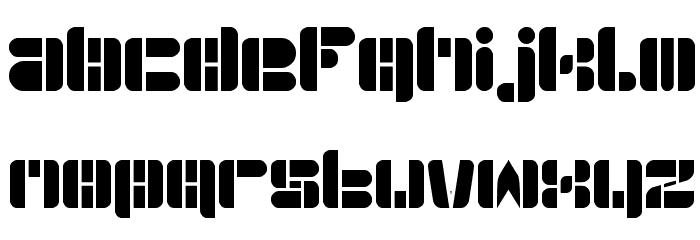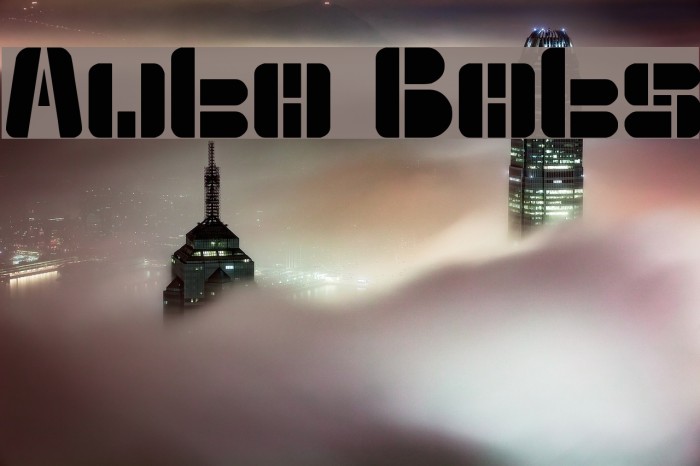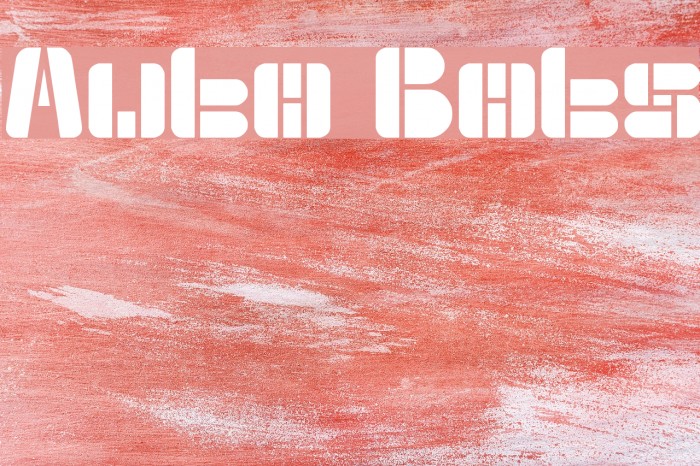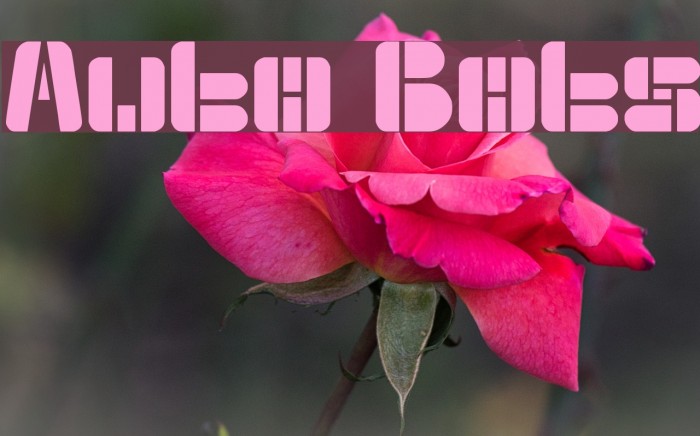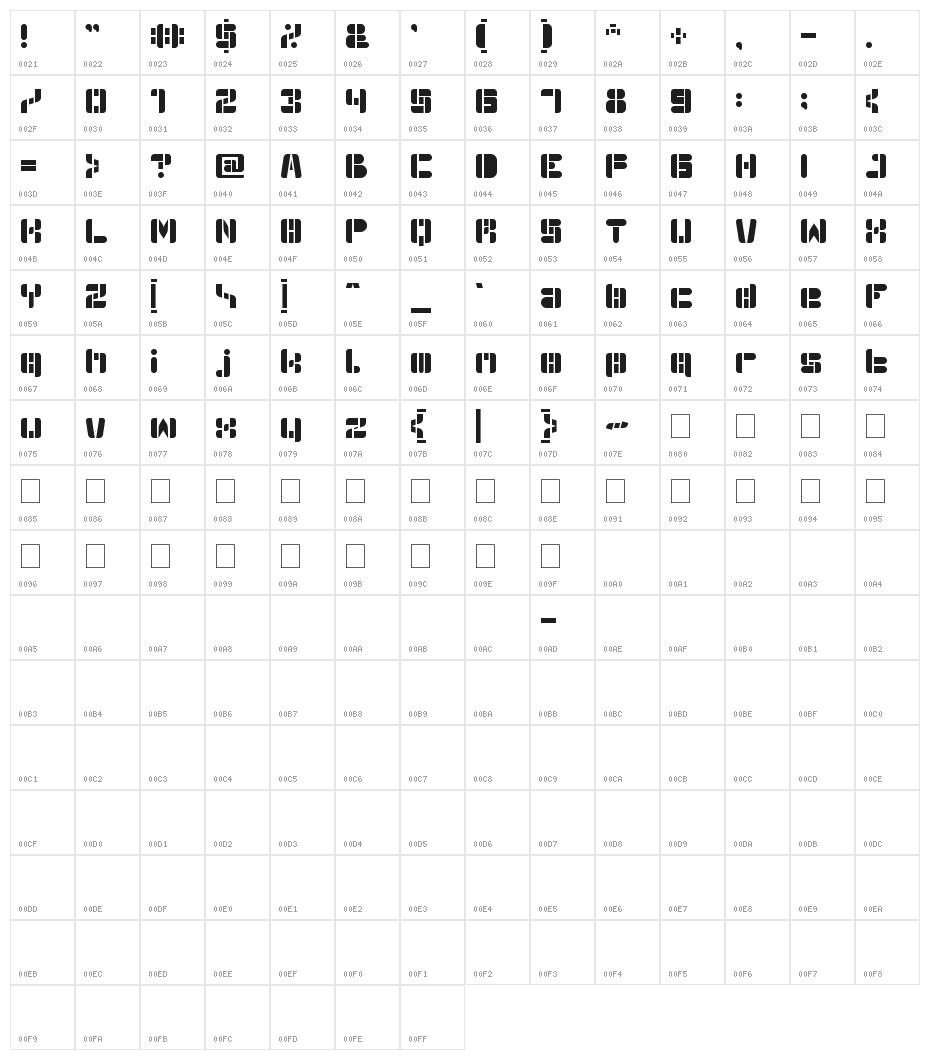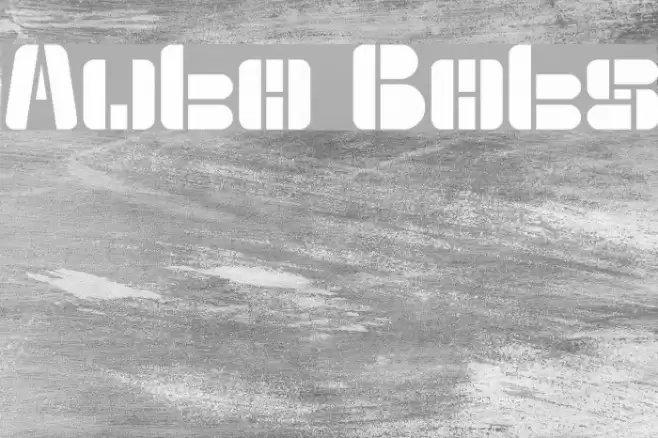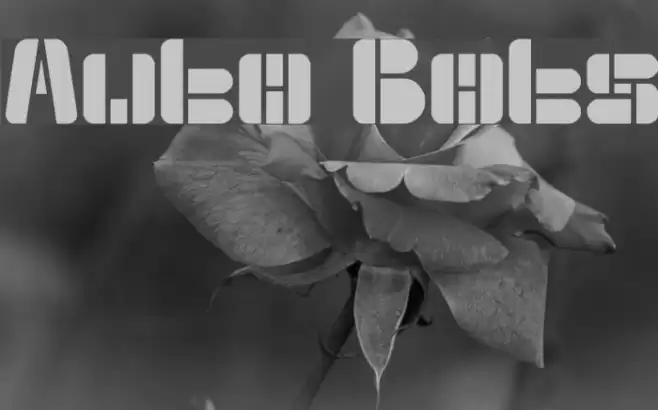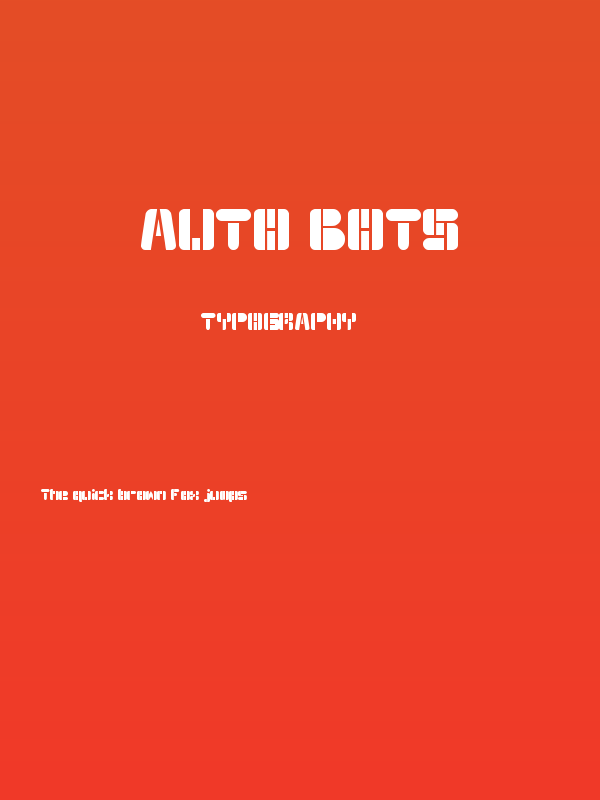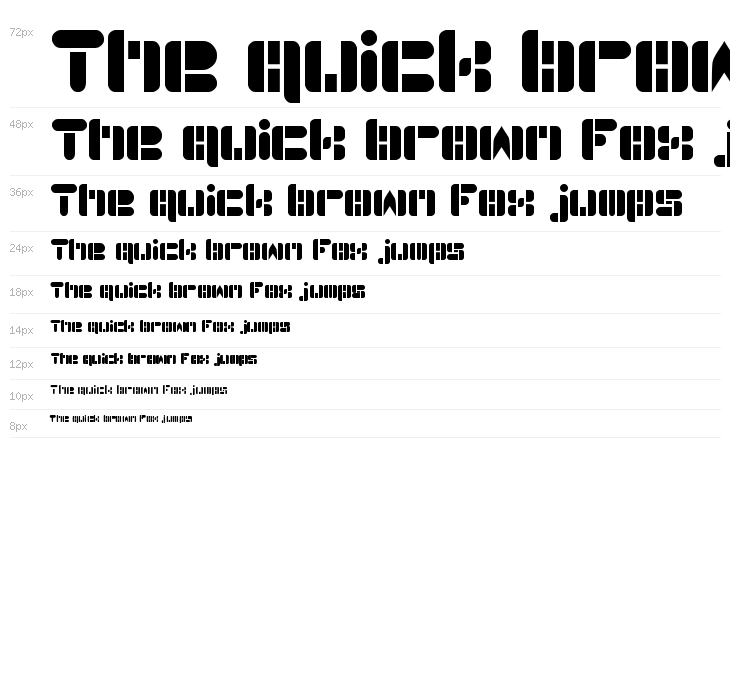
Auto Bots Font
This font features a bold, futuristic design with a strong geometric influence. Each character is constructed with thick, block-like shapes that create a sense of solidity and strength. The letters are uniformly wide, giving the font a monospaced appearance, although it is not strictly monospaced. The design incorporates a high level of contrast between the thick strokes and the negative space, enhancing readability while maintaining a distinctive style. The rounded edges of the characters soften the overall look, adding a modern touch to the otherwise industrial aesthetic. This font is particularly eye-catching and is designed to stand out in any application.
A bold, geometric font with a futuristic and industrial aesthetic.
- Proposed Projects: Ideal for technology branding, sci-fi themed projects, video game titles, and futuristic posters.
- Overall Style: Futuristic, Industrial